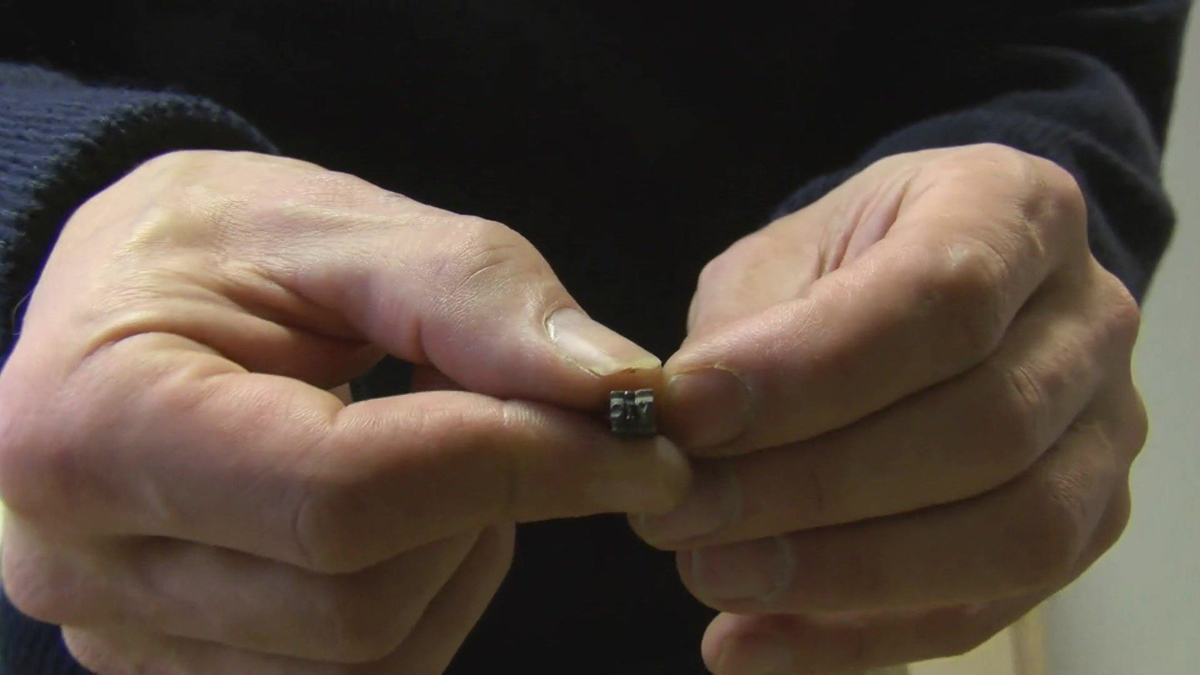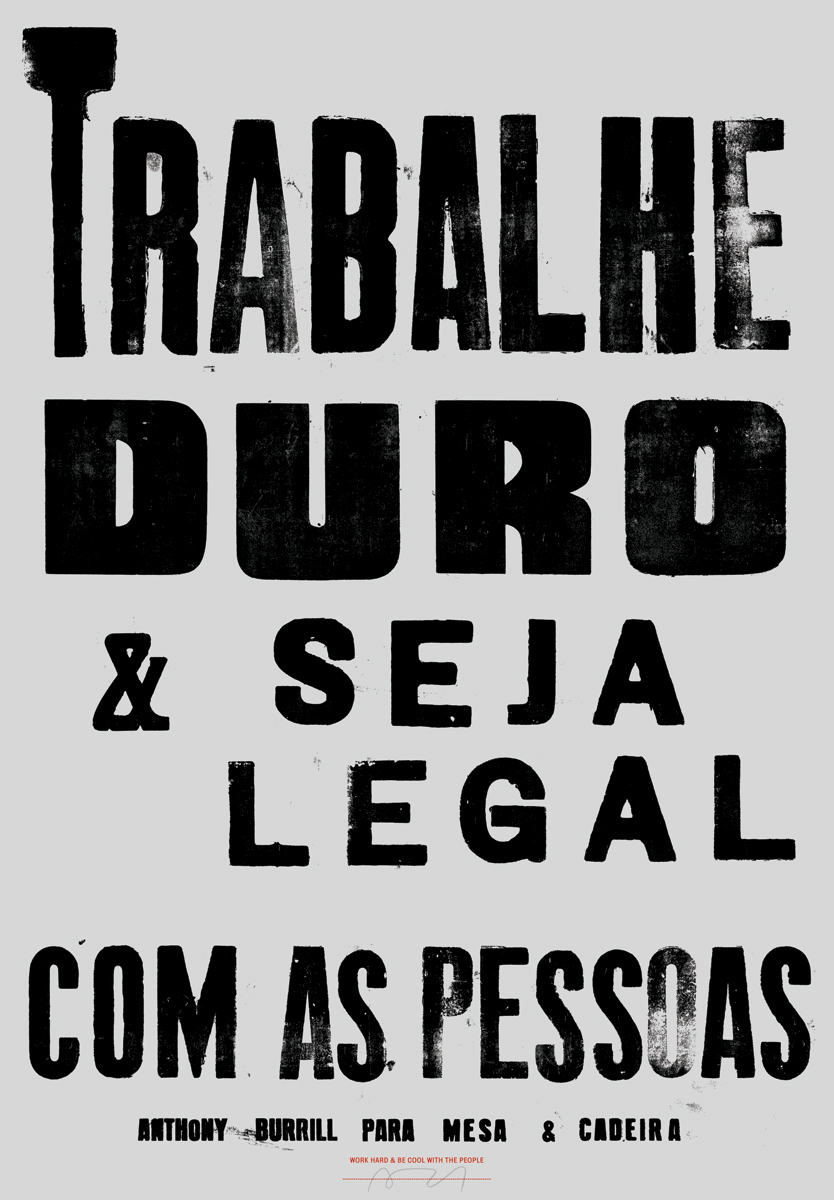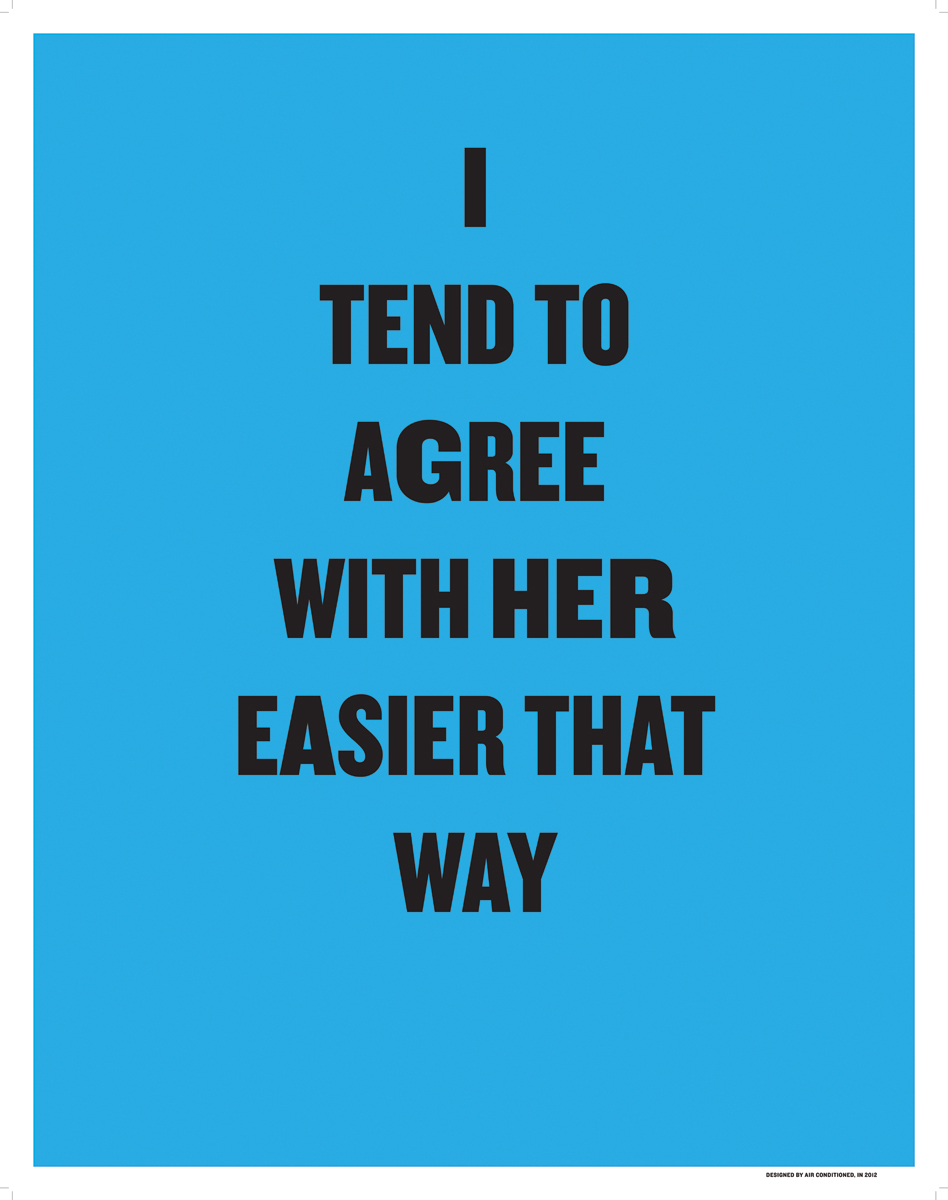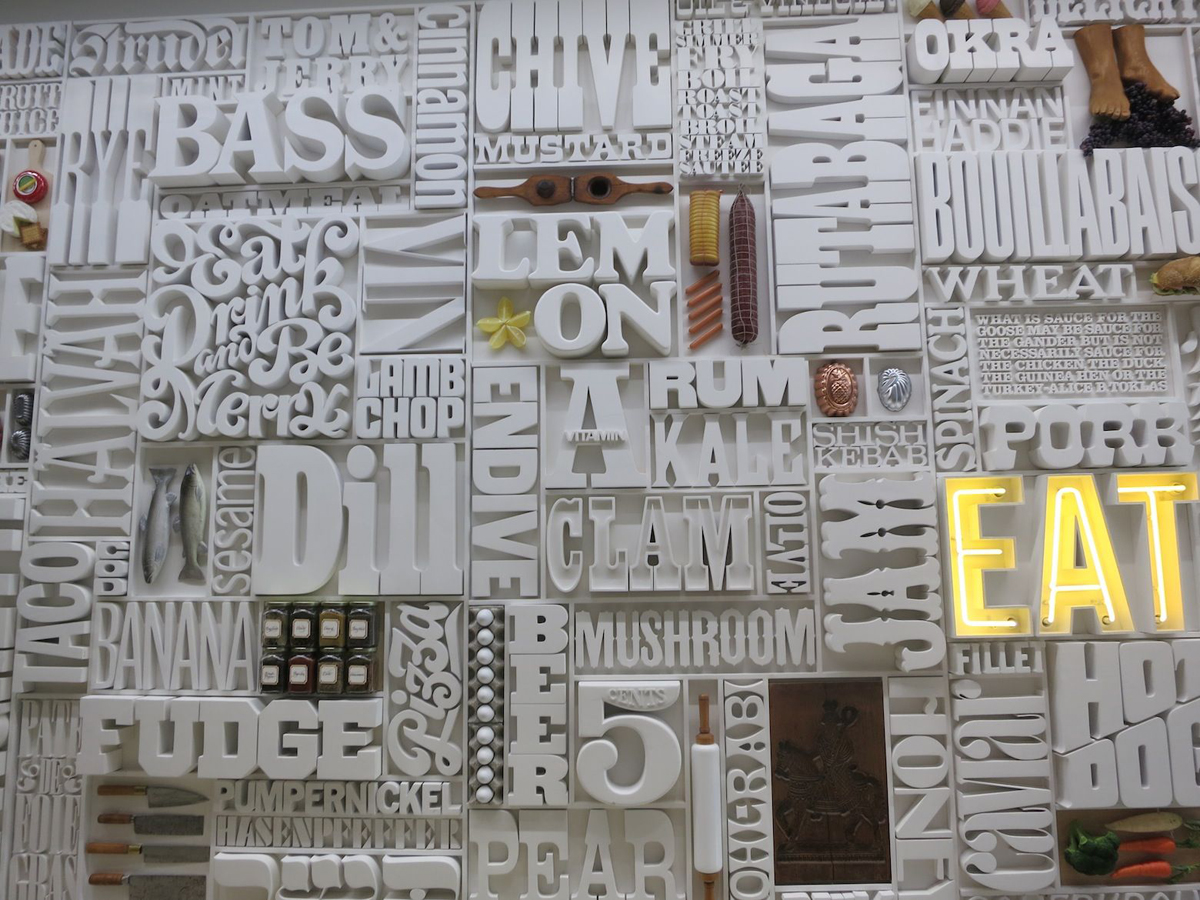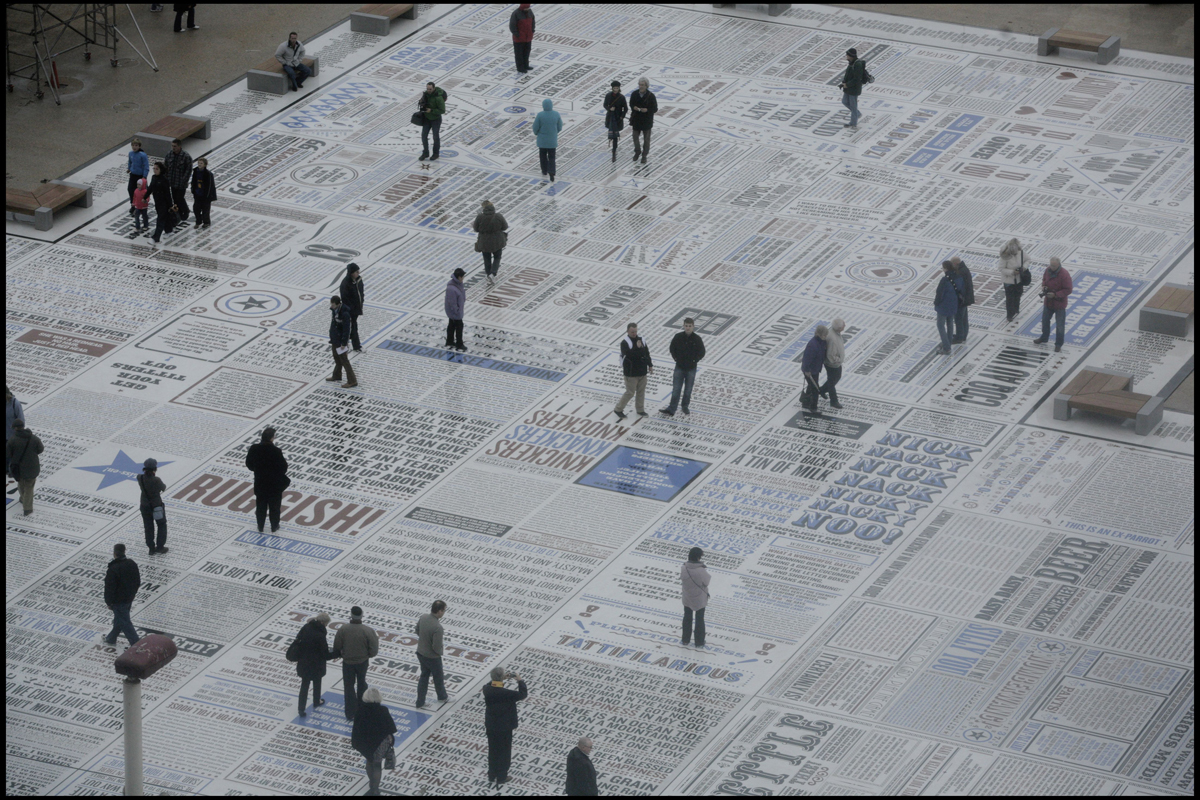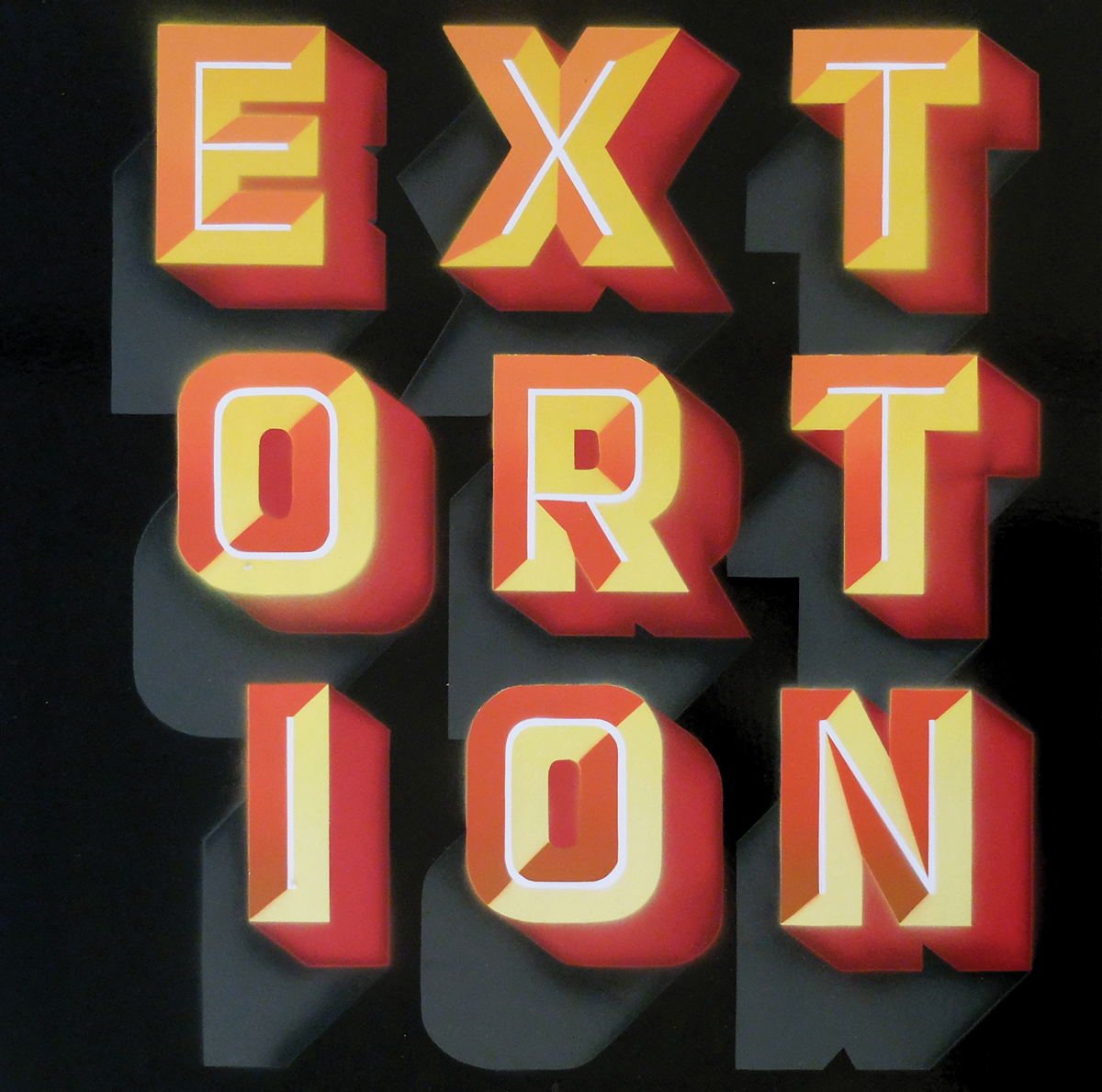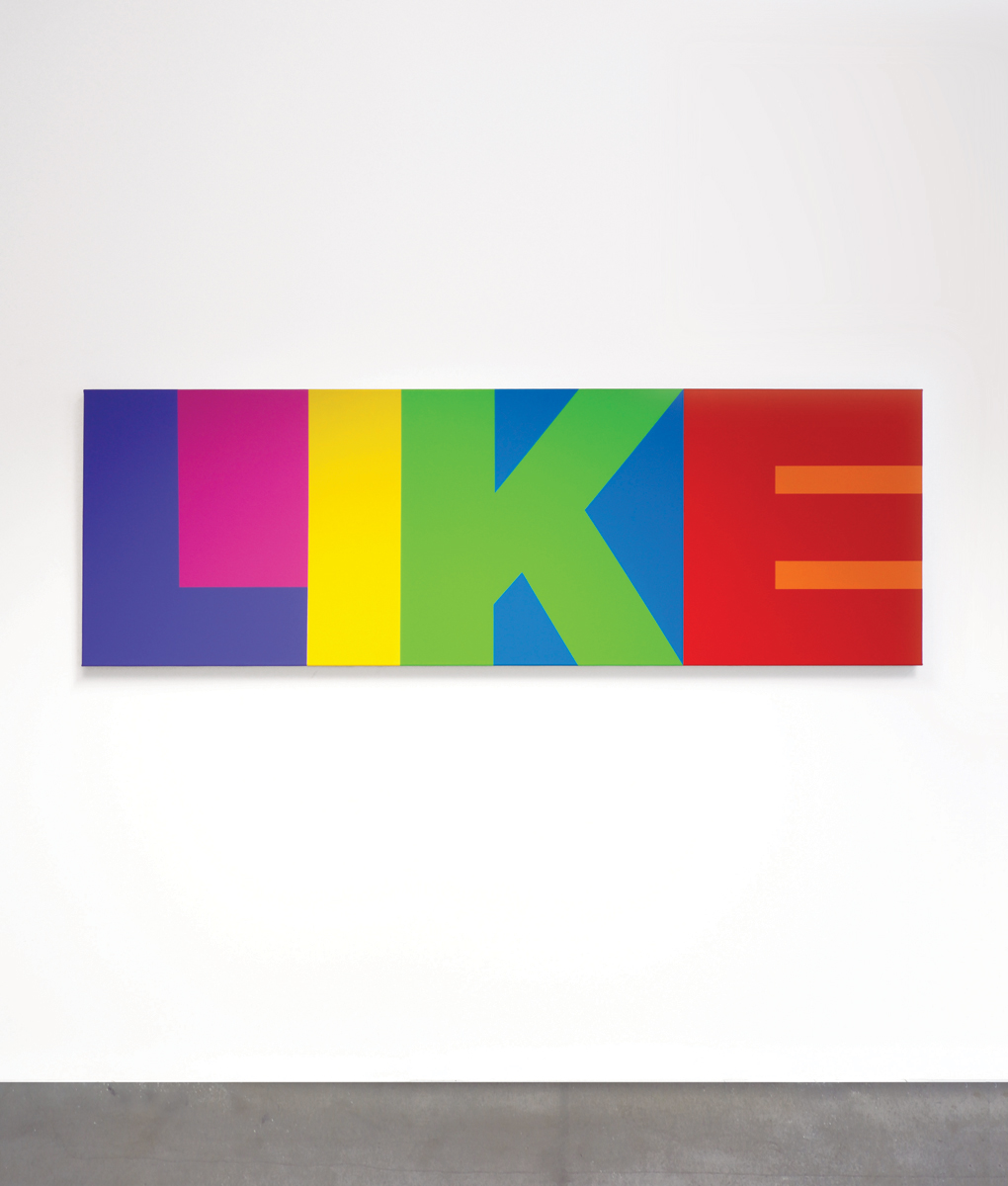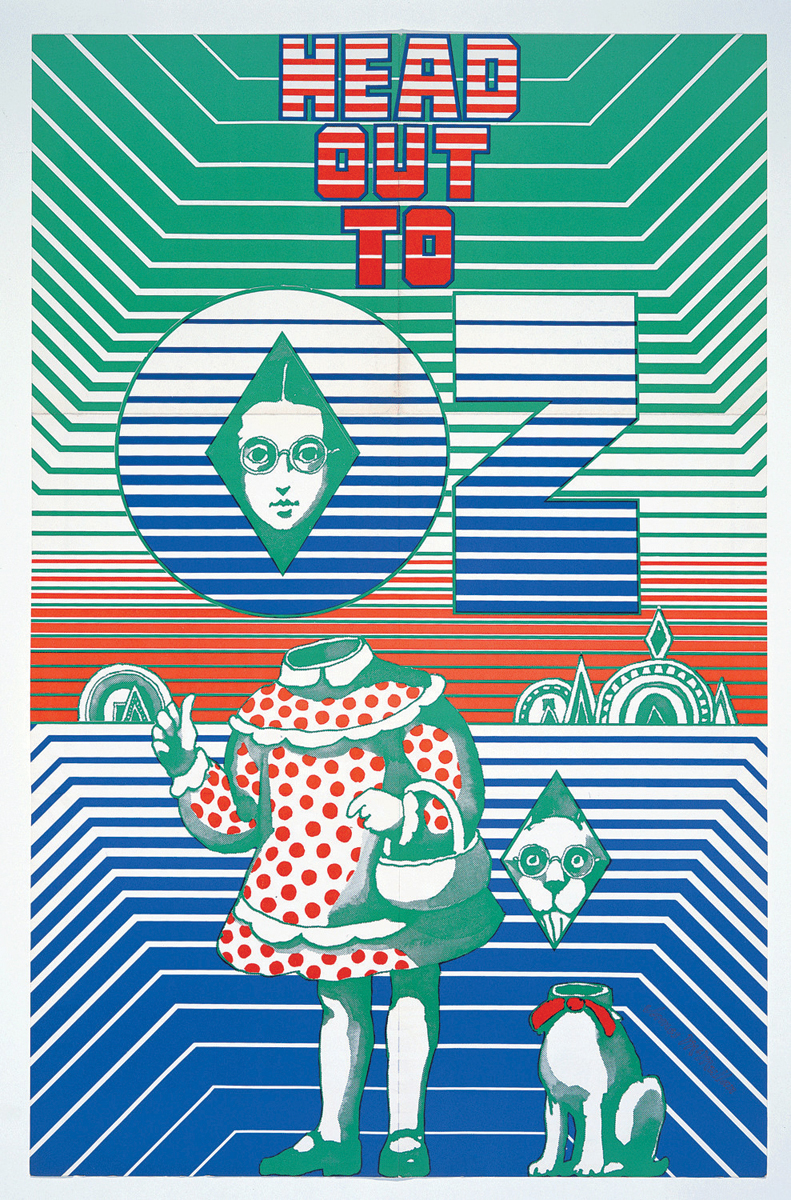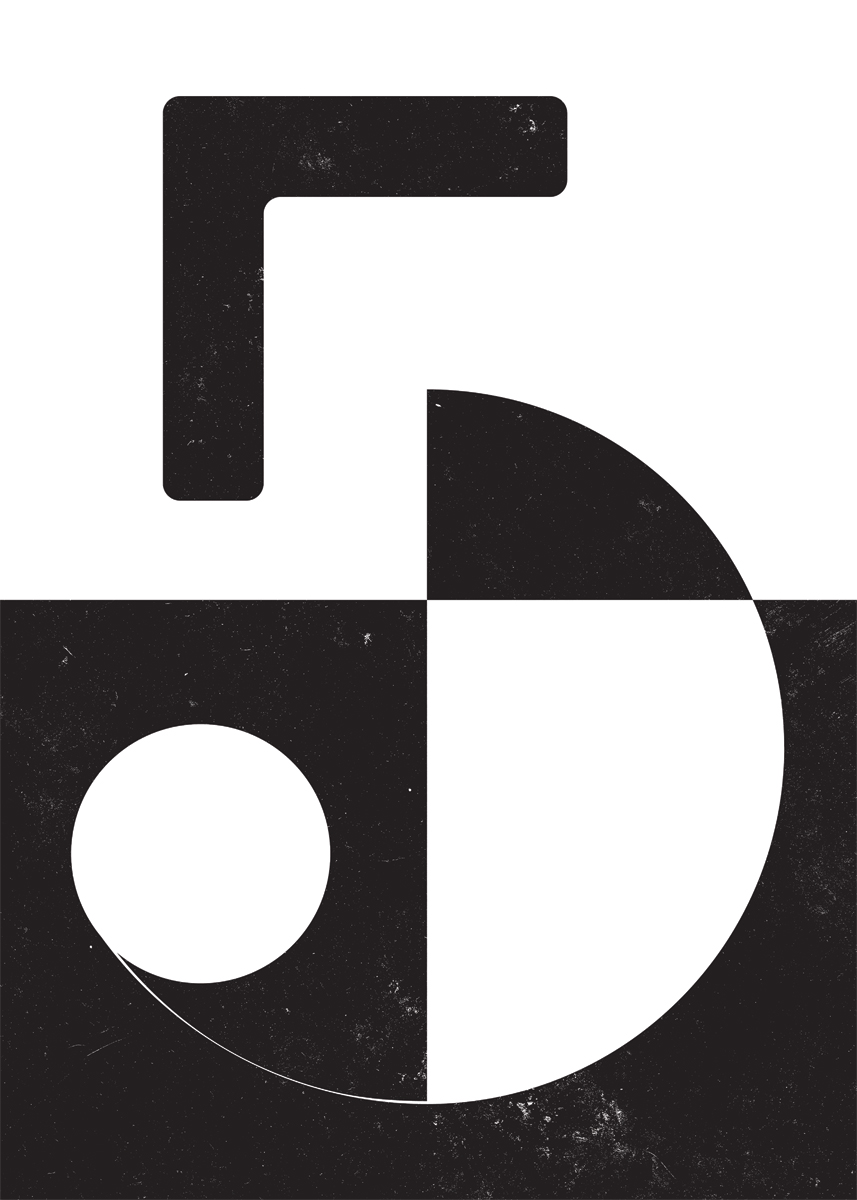
Graham McCallum’s Top Ten Iconic Graphic Design Moments
From the 1966 graphics department of the BBC to transforming the look of contemporary broadcast news with CNN’s redesign, the iconic graphic designer Graham McCallum remains one of the most respectable graphic designers of our times. The founding partner of Kemistry Gallery curates ‘100 Years of Graphic Design’, the first pop-up incarnation of the legendary design gallery since it was forced out of its Shoreditch home in December 2014. Ranging from 1914 to the present day, the exhibition is a unique Kemistry-curated retrospective of some of the most iconic and exciting moments in graphic design history. Artists include Alan Fletcher, Fredun Shapur, Hans Hillman, Ken Garland, Lou Dorfsman, Seymour Chwast and Milton Glaser, Saul Bass, Anthony Burrill, James Joyce, Jean Jullien, Geoff McFetridge, Parra, Rob Lowe, Ryan Todd, Stefan Glerum, Zero Per Zero, Experimental Jetset, Geneviève Gauckler, plus anonymous works from important private collections of classic design images, including Polish cinema posters of the 1960s and the propaganda images of the Latin American radicals OSPAAL. Graham McCallum picks his top ten exhibits of an event that is literally the next phase in their #SaveKemistryGallery campaign.
1. The Doves typeface
It’s not often a font gets celebrity status, but the Doves typeface has certainly achieved world-wide notoriety due the shenanigans surrounding its loss and recent rediscovery. In an almost Gothic tale involving a rights feud between the Hammersmith based printers T.J. Cobden-Sanderson and his partner Emery Walker, the original matrices were nocturnally cast into the Thames between 1916 and 1917 by Cobden-Sanderson.
Neither reckoned on the detective work, a century later of Robert Green, who with the aid of divers has rescued 150 of the original pieces from their watery grave, making him possibly the worlds first graphic design archaeologist. Robert has kindly lend us some rare items from his collection including an original William Morris piece set in types based on the 1470s Nicholas Jenson face upon which the Doves font was based.
2. Anthony Burrill – Trabalhe Duro & Seja Legal com as Pessoas.
One of our foremost and thoughtful designers, Anthony’s piece is typical of his thought-provoking type-based statements. This work was made in Sao Paulo and printed at the Grafica Fidalgo press who use a 1929 German letterpress to produce their posters.
The three friends who run the press make their own hand-carved wooden letters giving their work a retro feel that harks back to the very beginnings of the printed word. Naturally, Anthony’s unerring touch brings an effortless modernity to the message that translates as ‘Work Hard & Be Cool With People’ a mantra we should all live by.
3. Experimental Jetset ZangTum Btum
I’m not sure what Zang Tum Btum actually means but after seeing this poster, I almost certainly want it, and probably lots of it. Let Jetset explain:
“ZTT was a poster we created originally as a contribution to a group show that took place in Barcelona, in which the invited designers were asked to show their influences. In our poster, we tried to synthesize two seemingly opposed poles of the modernist spectrum: F.T Marinetti’s pro-war sentiments, as expressed in his novel ‘Zang Tumb Tumb’ (1914), and John Lennon and Yoko Ono’s anti-war message, as apparent in their ‘War is Over’ poster campaign (1970). By forcing the words of Marinetti in the lay-out of the iconic ‘War is Over’ poster (thereby distorting Marinetti’s phrase from ‘Zang Tumb Tumb’ to ‘Zang Tum Btumb’), we tried to ‘short circuit’ two of our main influences: Futurism and Fluxus”
4. Clive Piercy – I Tend to Agree With Her Easier That Way
This poster by Clive Piercy, English born but long time resident of Los Angeles, was printed at the legendary but now defunct Colby Poster Printing Company. As with other businesses, the digital age meant the company could no longer function in the market and ceased trading in 2012.
A family business, the staff had no training in design so they happily broke every typographical rule, mixing typefaces combined with a cavalier disregard to spacing, all printed on their trademark neon coloured backgrounds. In spite of this, their prolific output and style was instantly recognisable, hence the following of avid collectors.
5. Lou Dorfsman – Gastrotypographicalassemblege
This giant piece of work is no less than 11 metres long. The original, designed by Lou Dorfsman in the mid 60’s was installed on the wall of the cafeteria at CBS’s Black Rock building in NYC. Based on printers type-cases, 3D letters spelled out food items and the final composition was enhanced by embedding culinary objects such as rolling pins and jelly moulds into it.
In the mid 90’s when the building was being renovated, Philistines arrived and decided to hack the masterpiece off the wall. Fortunately passing designer Nick Fasciano heard about this and rushed to the rescue, raised funds and lovingly restored it to its former glory. It now graces the walls of The Culinary Institute of America in New York.
Kemistry Gallery obtained the original negative taken on the day the original was unveiled. We made a half scale reproduction on canvass of it that was unfortunately too large to show in our exhibition. It can however be viewed on request.
6. Gordon Young and Andy Altman – The Comedy Carpet
If you thought Lou’s work was big, try this on for size. This epic work must be the largest piece of graphic design ever made. Built to last 100 years, the 2,200 m2 design is comprised of over 160,000 separate letters, cut out of granite and embedded in concrete. The project was so large that a special factory was set up to manufacture the letters.
The work, commissioned by Blackpool Council, celebrates the catch-phrases and unique British humour of generations of comedians. Visitors can walk around and chuckle (although probably best not to take the Mother-in-Law) at memorable phrases such as ‘Shut that door’ ‘You are naughty, but I like you’ and hundreds more are preserved for future generations to puzzle over.